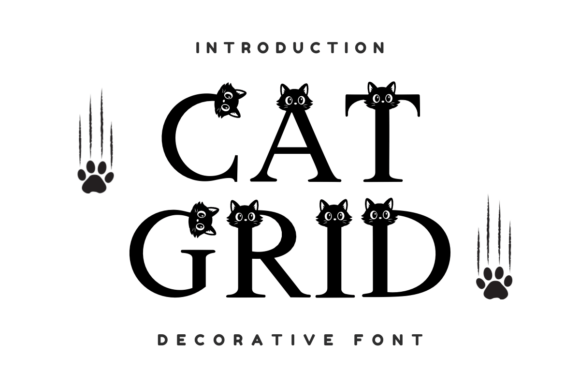
Catgrid Font: A Decorative Font for Creative Expression
Are you looking for a unique and creative way to express yourself through your writing or designs? Look no further than the Catgrid font, a decorative font that can add a touch of personality to any project. In this article, we’ll explore the features and uses of the Catgrid font, and how it can be used to enhance your writing, designs, and creative projects.
What is Catgrid Font?
Catgrid is a decorative font that is perfect for adding a touch of whimsy and personality to your writing or designs. The font features a unique and playful design, with bold lines and a distinctive style that sets it apart from more traditional fonts. Whether you’re looking to create a handmade card, a decorative journal entry, or a social media post, the Catgrid font is a great choice.
Uses for Catgrid Font
The Catgrid font is a versatile font that can be used for a wide range of creative projects. Here are just a few ideas to get you started:
- Note-taking: Use the Catgrid font to add a touch of personality to your notes and journals. Whether you’re a student, a writer, or simply someone who likes to jot down ideas, the Catgrid font is a great choice.
- Diary writing: The Catgrid font is perfect for writing in a diary or journal. The decorative design adds a touch of whimsy and fun to your writing, making it a great way to express yourself.
- Greeting cards: Create handmade greeting cards for special occasions using the Catgrid font. The font is perfect for adding a personal touch to your cards.
- Banners: Use the Catgrid font to create eye-catching banners for parties, events, or social media posts.
- Content creation: Add a touch of personality to your blog posts, articles, or social media content with the Catgrid font.
- Mugs and ceramics: Use the Catgrid font to create custom designs for mugs, ceramics, or other household items.
- Cards and invitations: Create custom cards and invitations for special occasions using the Catgrid font.
- Shirts and apparel: Use the Catgrid font to create custom designs for shirts, hoodies, or other apparel.
- Stationery: Create custom stationery, such as notebooks, journals, or letterhead, using the Catgrid font.
- Social media posts: Add a touch of personality to your social media posts using the Catgrid font.
Benefits of Using Catgrid Font
There are many benefits to using the Catgrid font for your creative projects. Here are just a few:
- Unique and creative: The Catgrid font is a unique and creative way to express yourself through your writing or designs.
- Easy to read: Despite its decorative design, the Catgrid font is easy to read and understand.
- Versatile: The Catgrid font can be used for a wide range of creative projects, from note-taking to content creation.
- Customizable: You can customize the Catgrid font to fit your needs, using it in a variety of colors, sizes, and styles.
Tips for Using Catgrid Font
Here are a few tips for using the Catgrid font effectively:
- Use it sparingly: While the Catgrid font is decorative and fun, it can be overwhelming if used too much. Use it sparingly to add a touch of personality to your writing or designs.
- Pair it with other fonts: Pair the Catgrid font with other fonts to create a unique and interesting design.
- Experiment with colors: Experiment with different colors and sizes to find the perfect combination for your project.
The Catgrid font is a decorative font that can add a touch of personality to any creative project. With its unique and playful design, it’s perfect for note-taking, diary writing, greeting cards, and more. Whether you’re a writer, designer, or simply someone who likes to express themselves creatively, the Catgrid font is a great choice. So why not give it a try and see what amazing creations you can come up with?